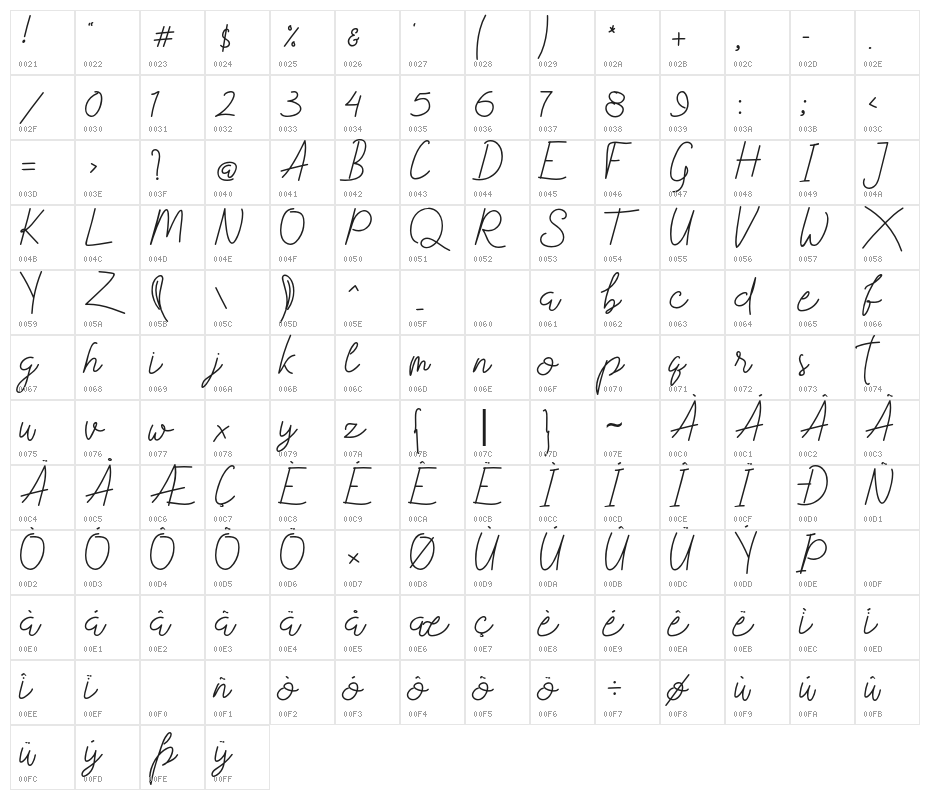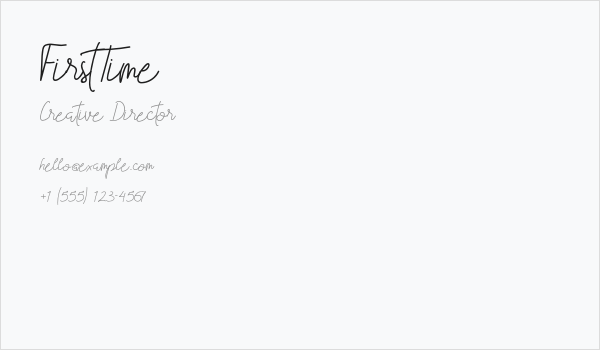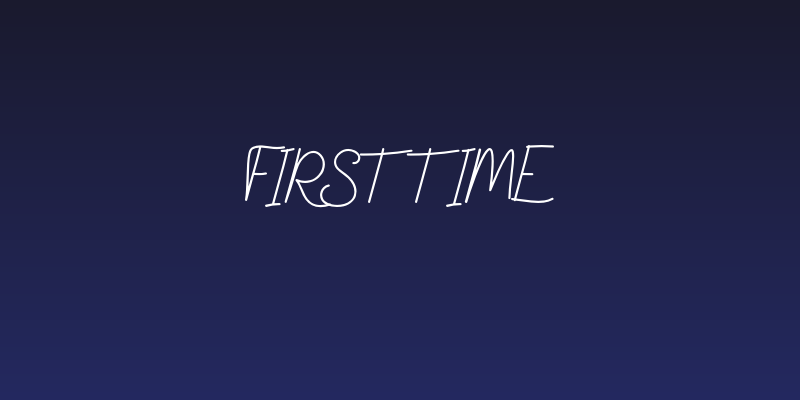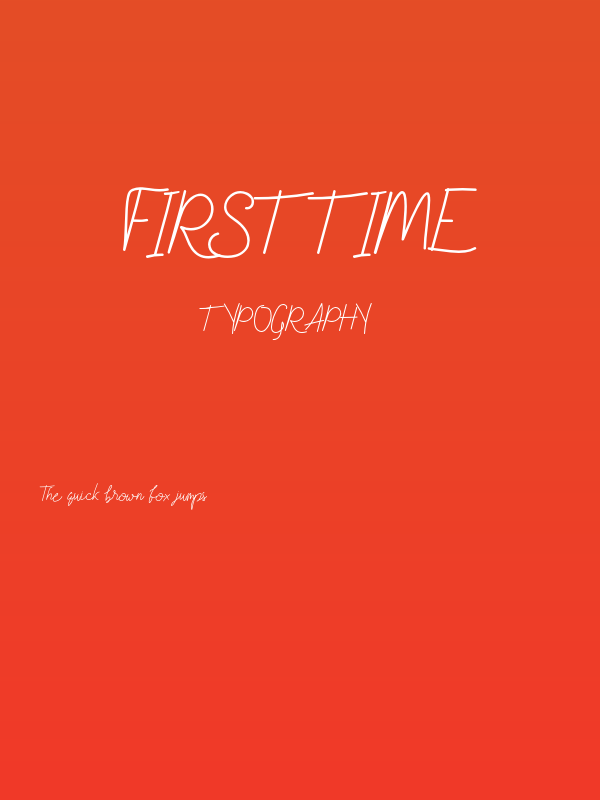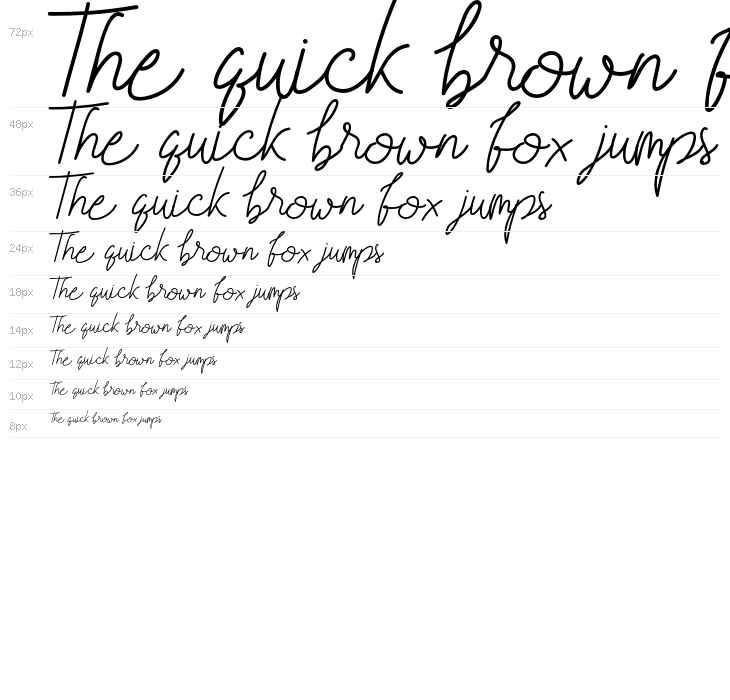
FirstTime Font
FirstTime Description
This font features a playful and casual script style, characterized by its fluid and smooth strokes. The letters are connected, giving it a handwritten appearance that is both approachable and stylish. The uppercase letters maintain a consistent height, while the lowercase letters vary slightly in size, adding to the informal charm. The numbers are clear and easy to read, matching the overall aesthetic. Special characters are included, maintaining the same whimsical style. This font is ideal for projects that require a personal touch, such as invitations, greeting cards, or creative branding.